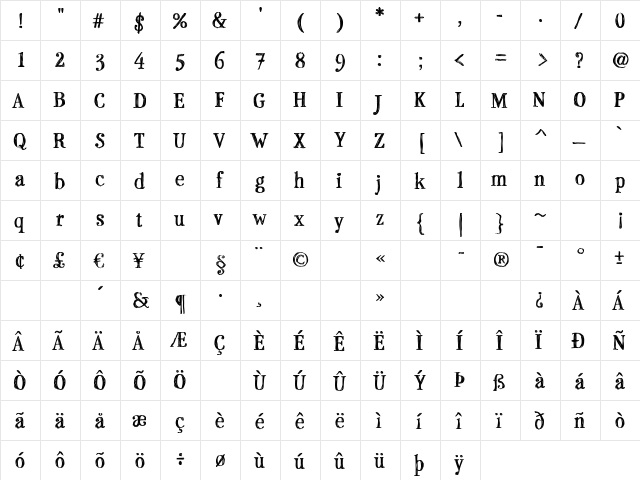
P22 Stanyan Bold Regular
Design Context for P22 Stanyan Bold Typeface
P22 Stanyan Bold takes a measured approach to typography — its balanced proportions and neutral character make it a reliable workhorse for both digital and print work. The heavy weight commands attention and anchors typographic hierarchies.